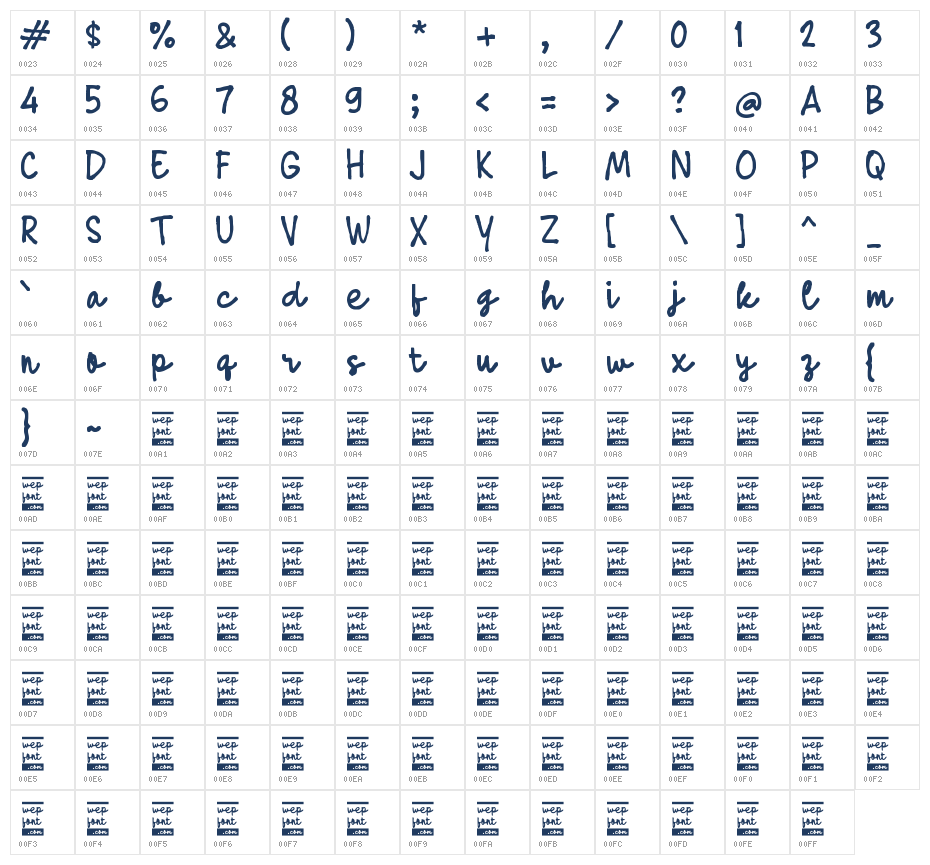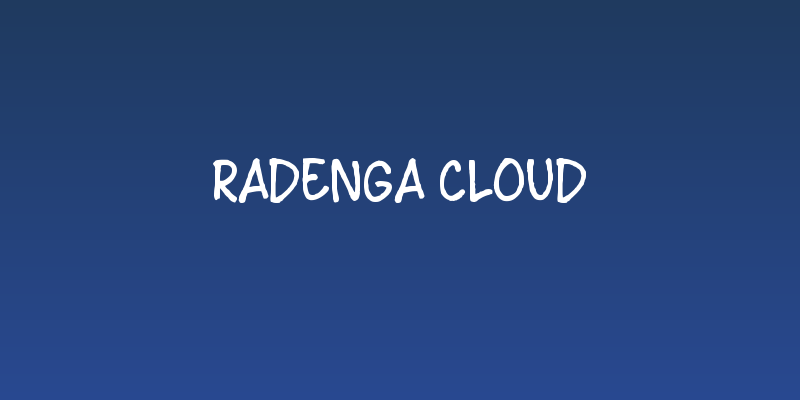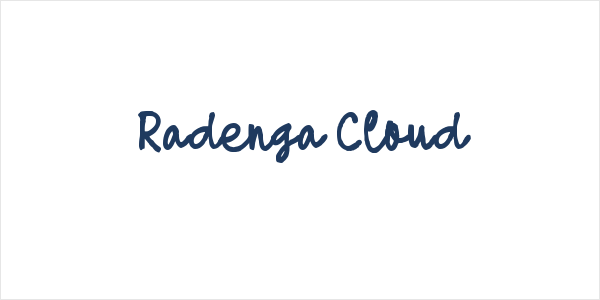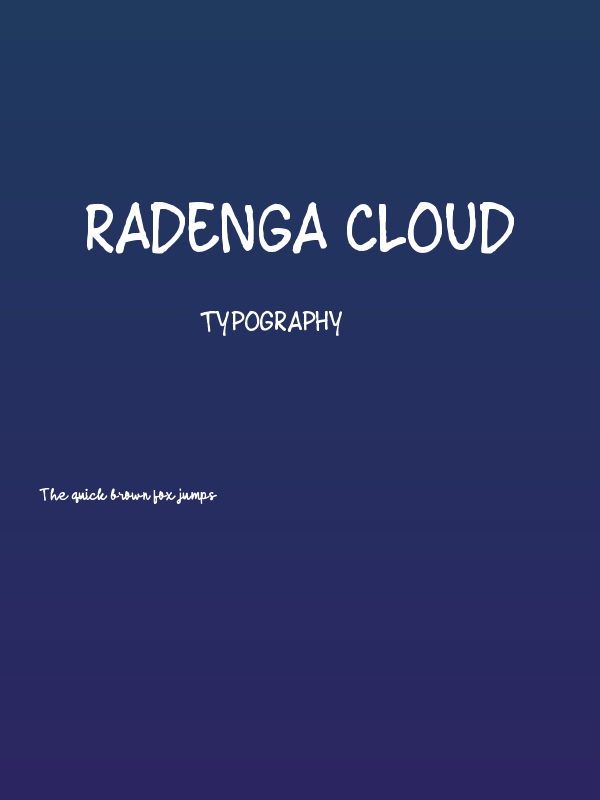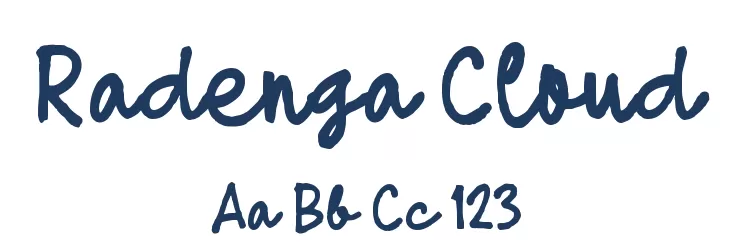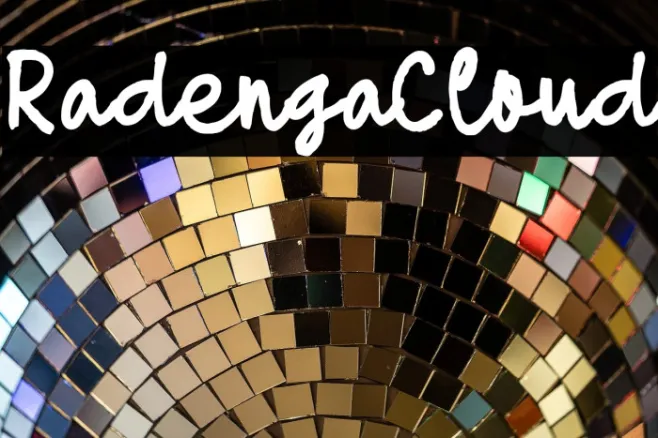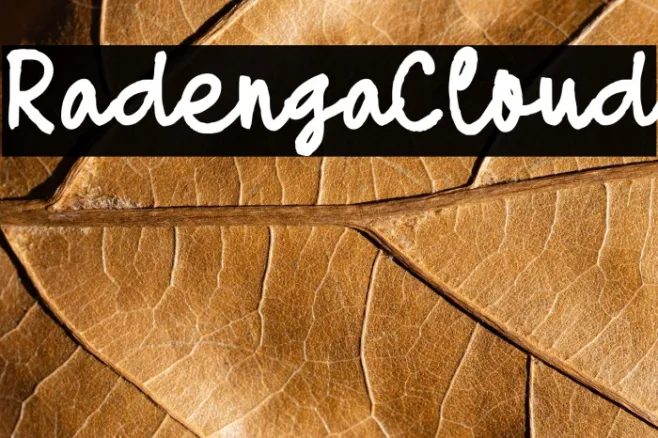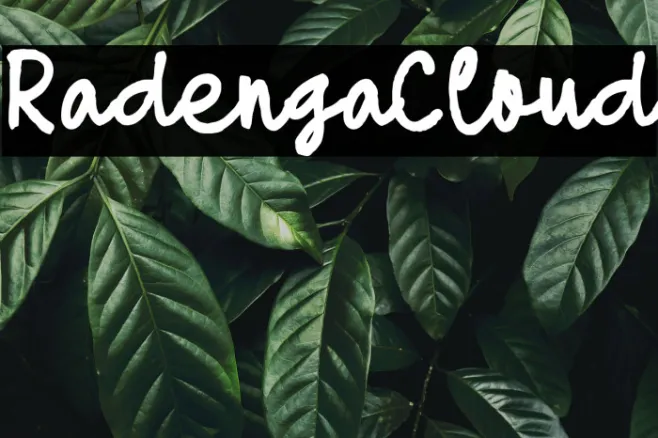
Radenga Cloud Font
Radenga Cloud Description
A casual, handwritten style font with a playful and informal appearance, featuring slightly irregular strokes and rounded edges.
| Overall Style | Casual, Playful, Informal |
| Use Case | Headlines, Body text, Logos, Creative projects |